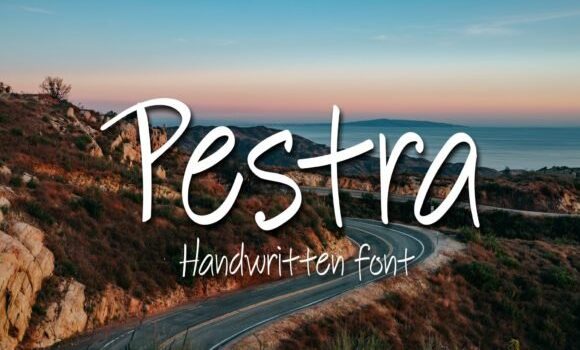
pestra
Pestra Font – Free Download Introduction to Pestra Font Pestra is a lovely and timeless handwritten font. 📸 Preview Gallery 5 images 📌 Product Name Pestra Font 👤 Author Digital Typeface Studio 📂 Category Explore ⬇️ Download Pestra Font FREE